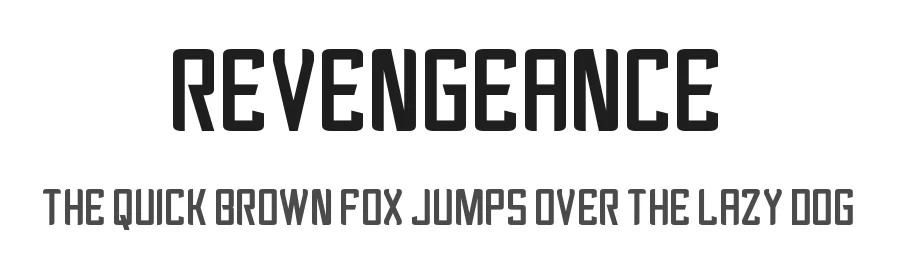
About Etobicoke Font
Etobicoke is a sans-serif font designed by Arfurware. It includes 653 glyphs, a regular weight, TTF (TrueType) format, and 292 languages. Etobicoke is free to download; check the license details on this page before commercial use. Sans-serif fonts like Etobicoke work best for clean body text, user interfaces, branding, and modern layouts.
| Designer | Arthur Lui |
Etobicoke Font is a versatile sans-serif font that works for both headings and body text. Pair it with a contrasting serif or slab serif font to add visual interest and a clear distinction between titles and body copy.
Etobicoke Font
by Arfurware
Etobicoke Font is a sans serif typeface by Arfurware, ideal for logos, invitations, branding, and creative projects.